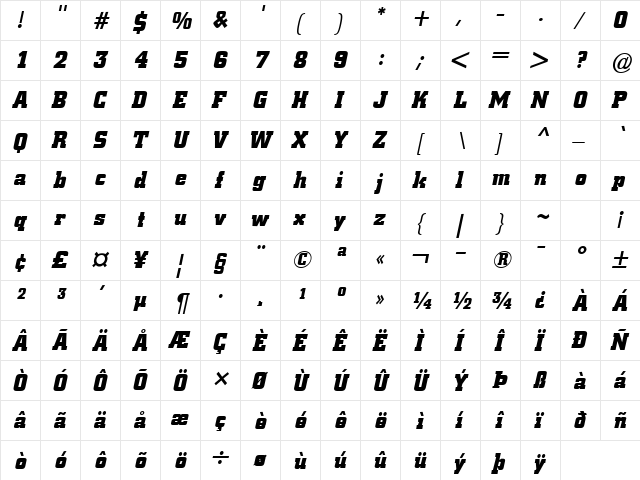
Borghs Italic
Design Context for Borghs Typeface
Borghs is a composed and adaptable typeface that performs quietly and consistently across a wide range of design contexts. The dynamic lean of this cut emphasises speed and emphasis in any layout.
Pro Tip: Try Borghs for annotation and caption copy alongside an upright companion — the contrast in angle creates a dynamic but ordered typographic system.